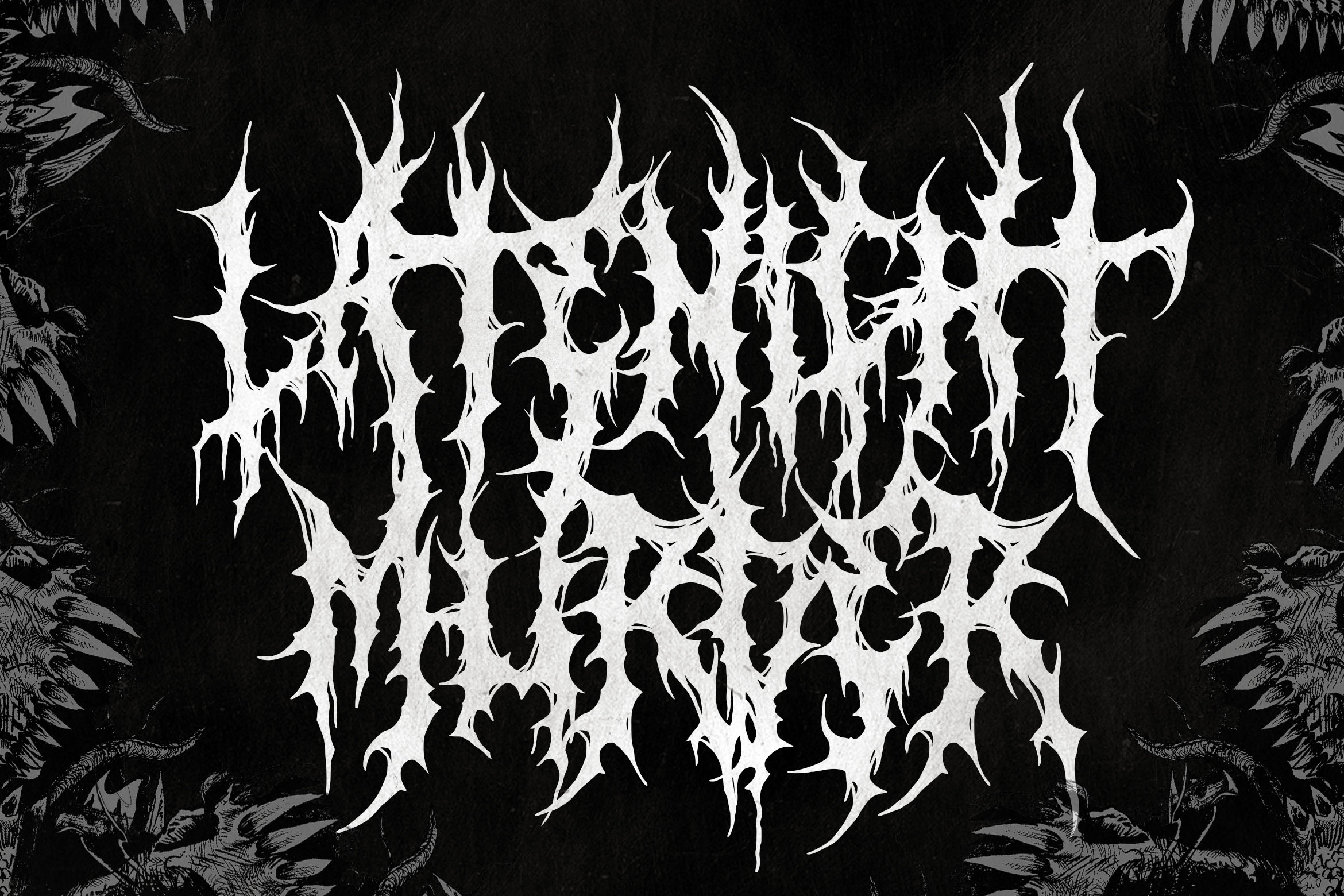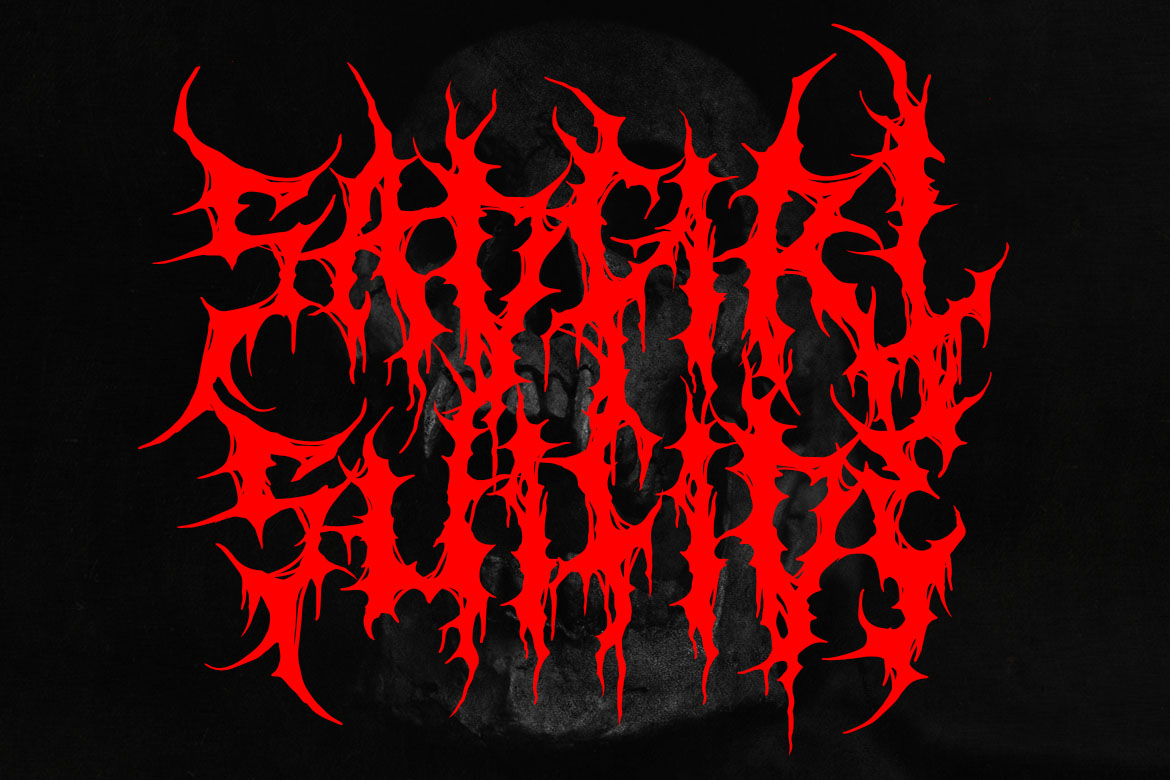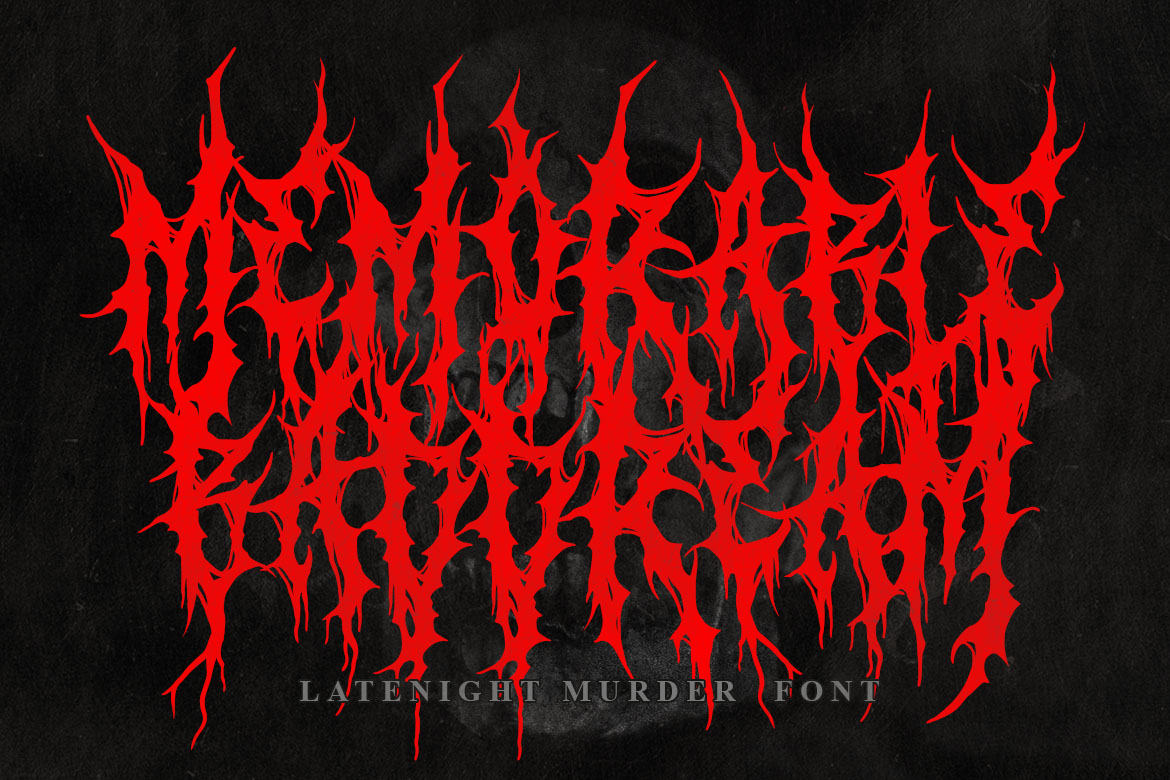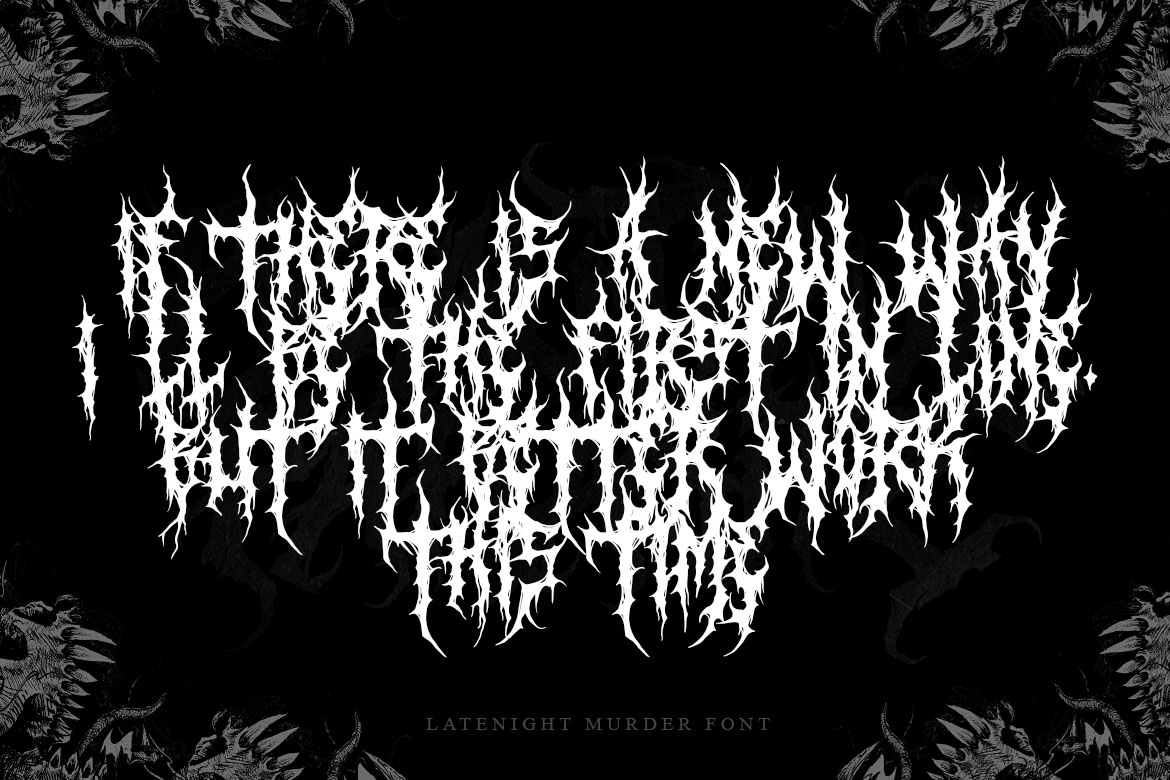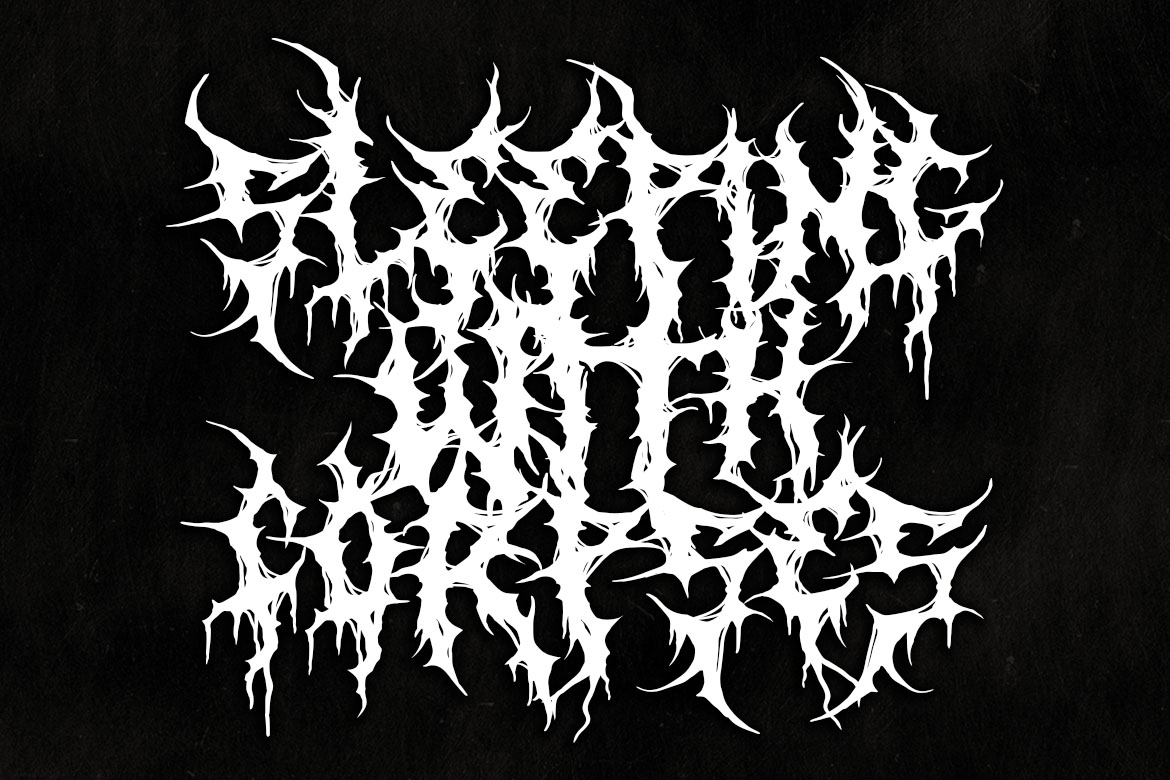
Latenight Murder
Latenight Murder is awesome death metal font. Comes with Uppercase and lowercase characters. This font is great for any gore/metal/brutal design purposes. Latenight Murder is awesome for your logo, your band, for merchandise, for clothing, and movie title/poster